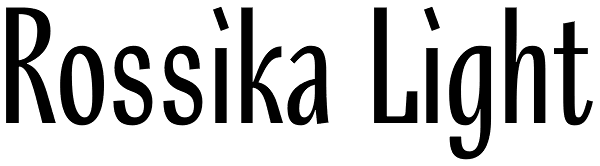
Rossika
Rossika is a four-style typeface designed by Oleg Karpinsky in 2002-2004 for the ParaType company. The general design and some letterforms were borrowed from antique Russian typefaces of XV-XVIII centuries. For example, the upper Cyrillic N has a...